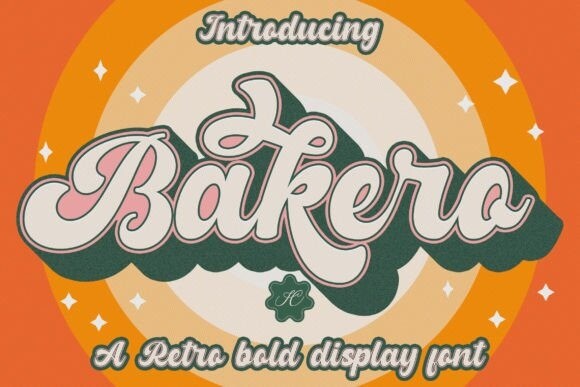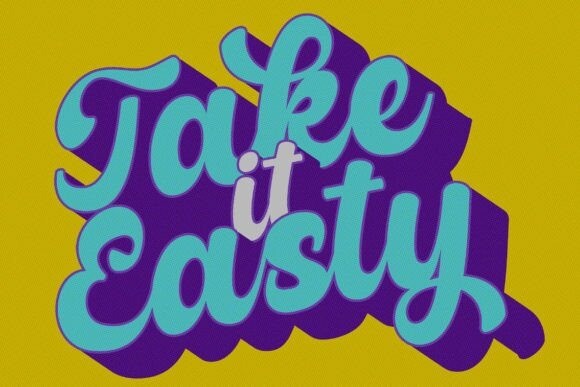
Bakero Font
Bakero font it’s inspired by retro lettering posters and vintage typography in the 80s combined with a bold font style that will bring you back to nostalgia. This typeface is perfect for logos, logotypes, t-shirts, vintage badges, retro quotes, branding, packaging, posters, etc.